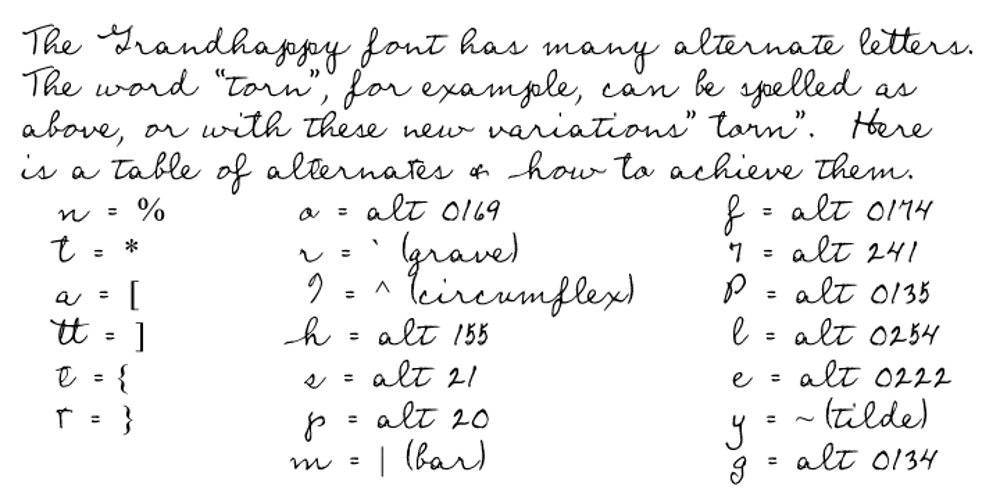
Grandhappy Font Family was designed by published by Journey’s End. Grandhappy contains 1 styles and family package options. Have you ever searched for a font that looked like it was really someone’s handwriting, only to find that it was too feminine or too hard to read? I used to want a font like that, too, until I discovered that a font like that had been residing in my attic, in letters to me from my late grandfather. Not only was I thrilled to have a font like this at hand, but also one that would be a memory of my grandfather every time I used it. He was a hard-working man, raising a family during the Depression, yet was still fun-loving, kind, and generous. We called him Grandhappy. As a wedding present, I received from him rolling pins and a cutting board made of 8 different kinds of wood that he pieced together. In this font, the bullet is a rolling pin in honor of that! Other than the fact that this is a font from the hand of one greatly loved, my favorite thing is that although a True Type Font, it has some features of an Open Type font. There are many alternative letter choices available through the use of little-used keys on the keyboard and alt codes. This font was chosen to portray Jay Gatsby’s handwriting in The Great Gatsby (2013).